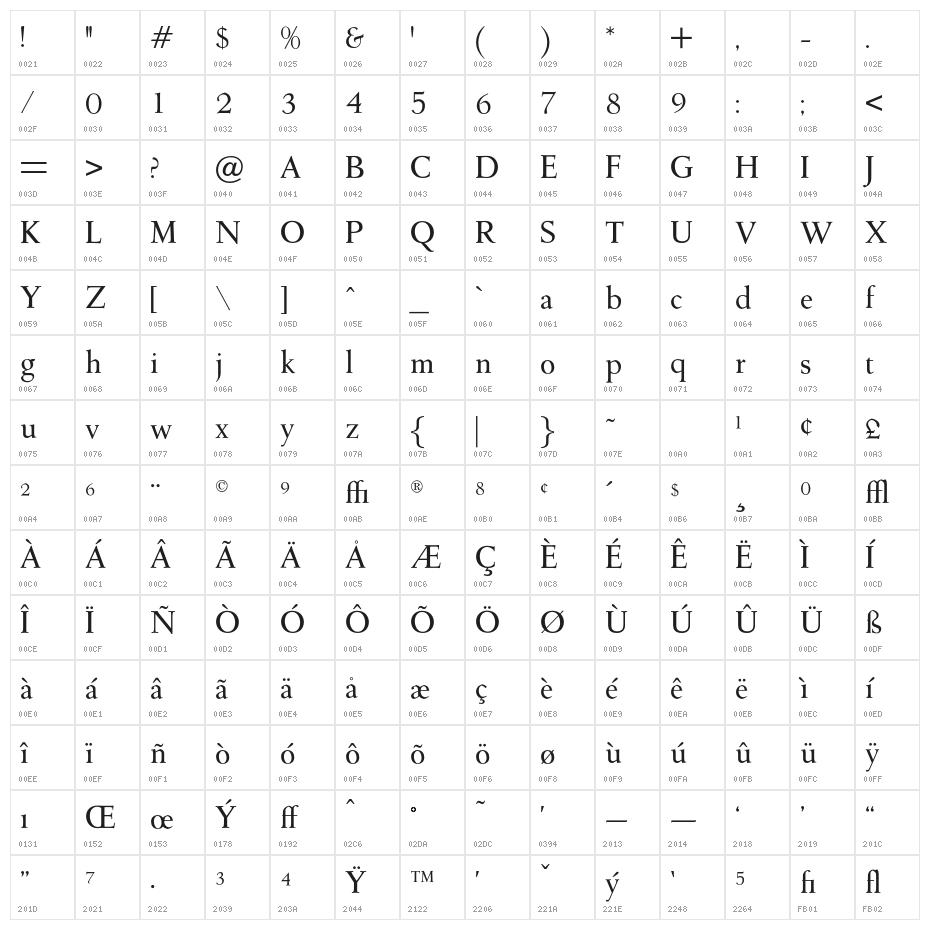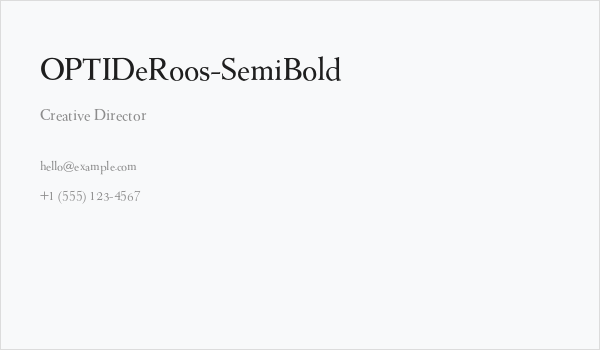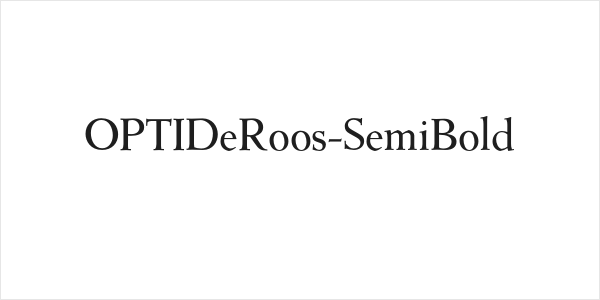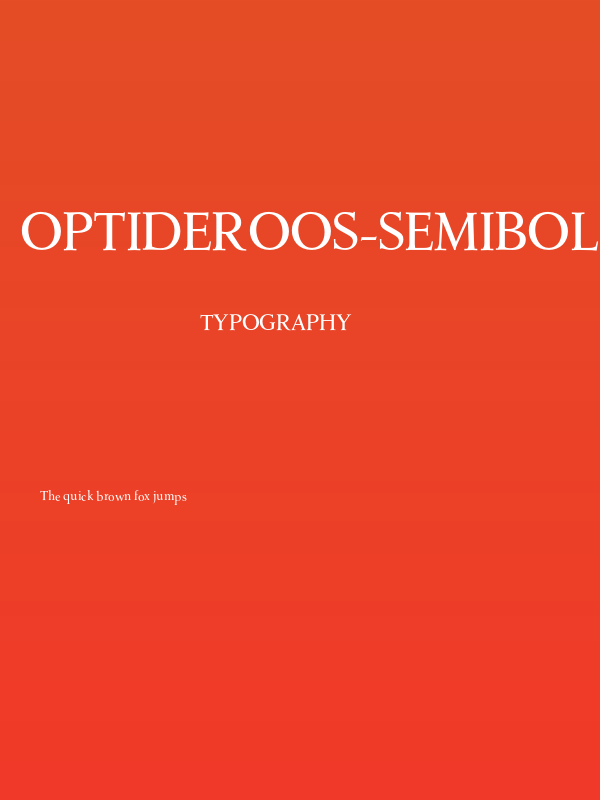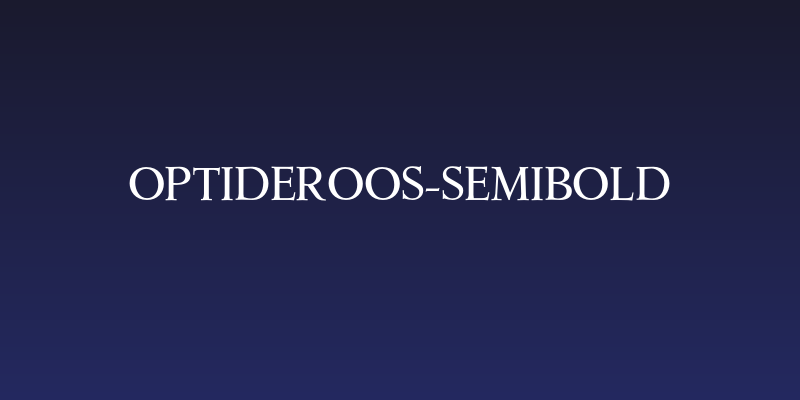
OPTIDeRoos-SemiBold Font
OPTIDeRoos-SemiBold Description
This font features a classic serif style with elegant, sharp serifs and a balanced structure. The uppercase letters are bold and commanding, while the lowercase letters maintain a graceful flow. The numerals are clear and distinct, making them easily readable. Special characters are well-defined, adding versatility to the font. The overall design combines traditional serif elements with a modern touch, making it suitable for a variety of applications. The font's semi-bold weight provides a strong presence without overwhelming the reader, and the character spacing is normal, ensuring readability across different sizes.
| Proposed Projects | Ideal for editorial design, book covers, formal invitations, and branding materials. |